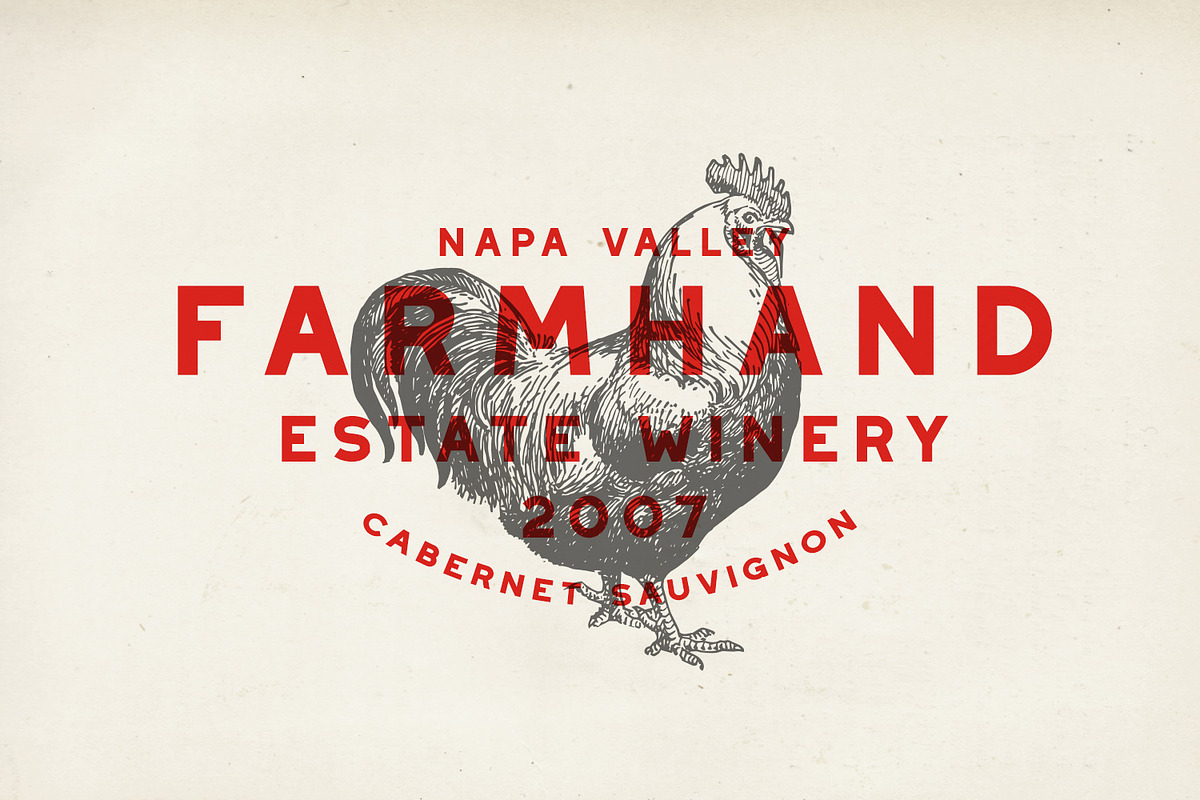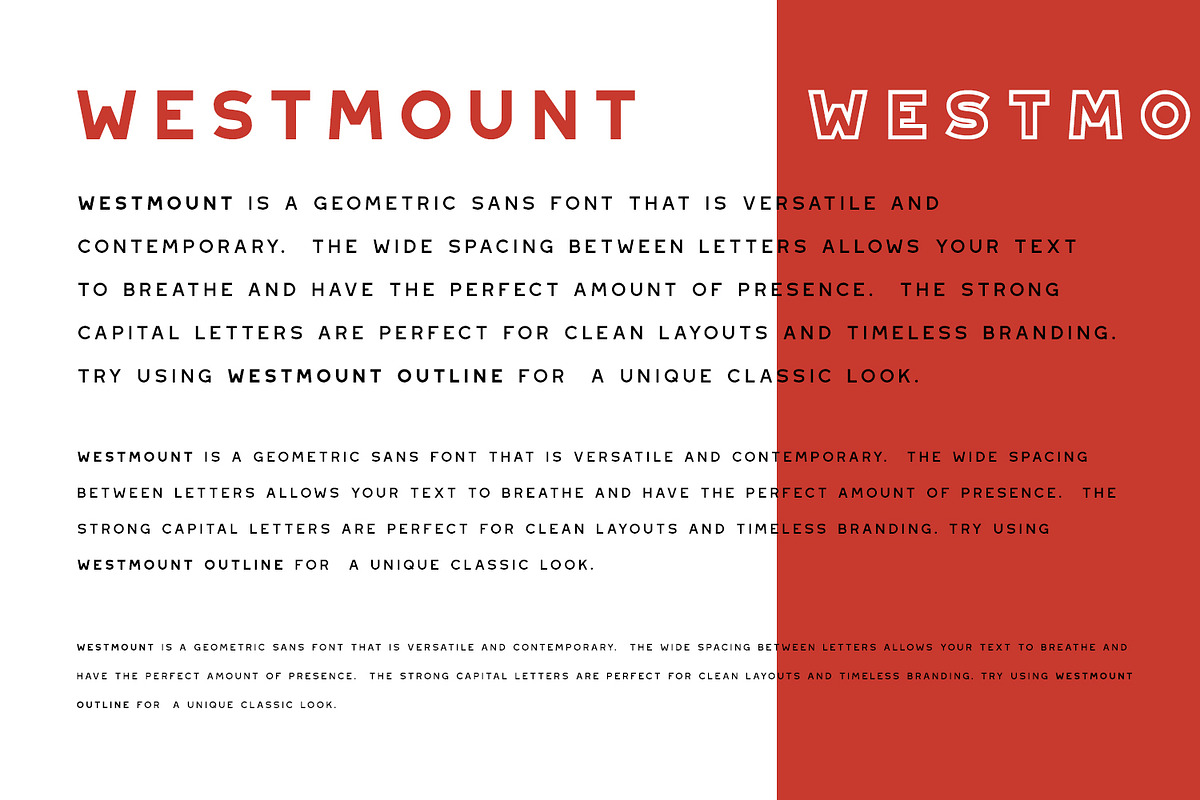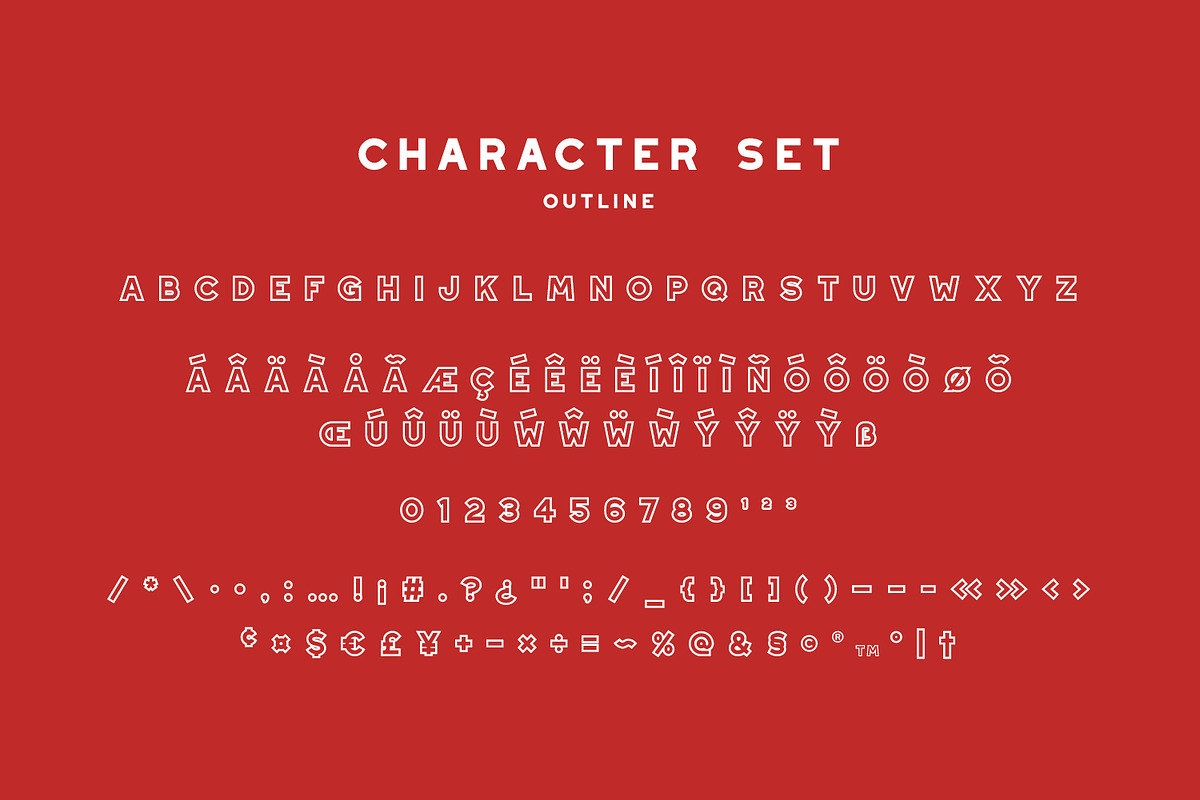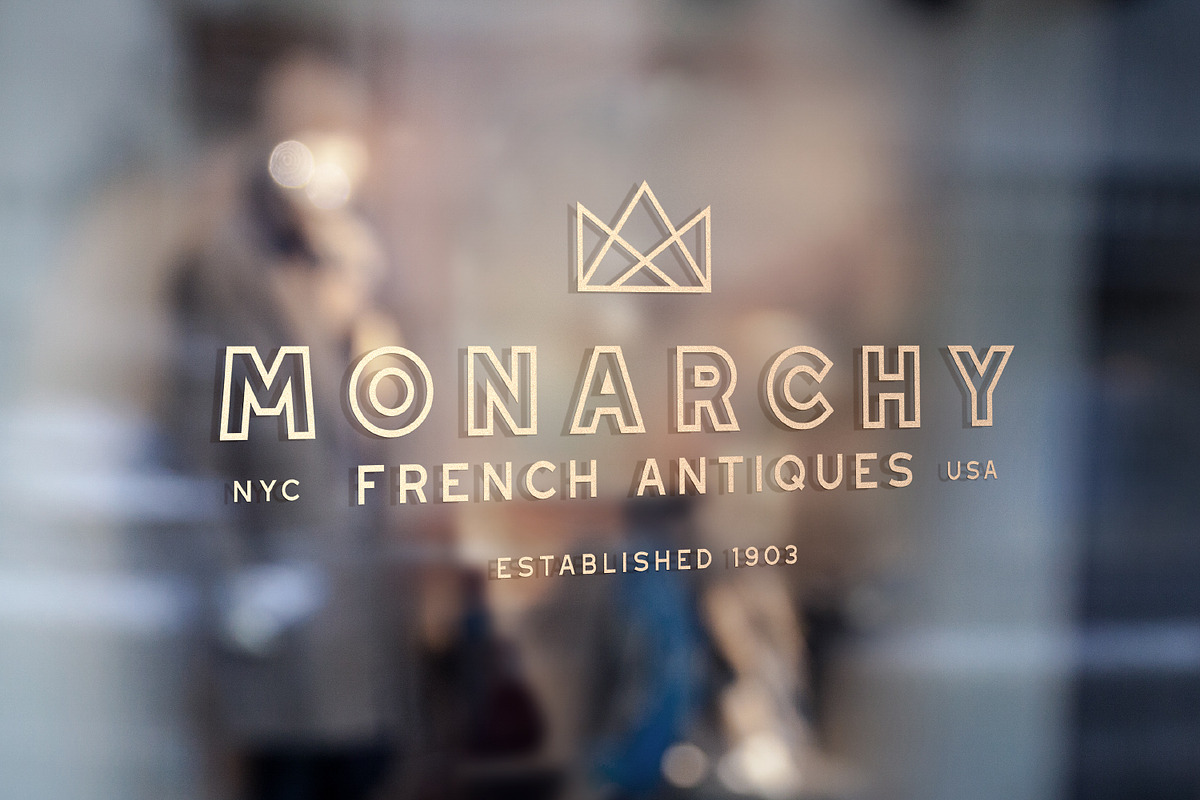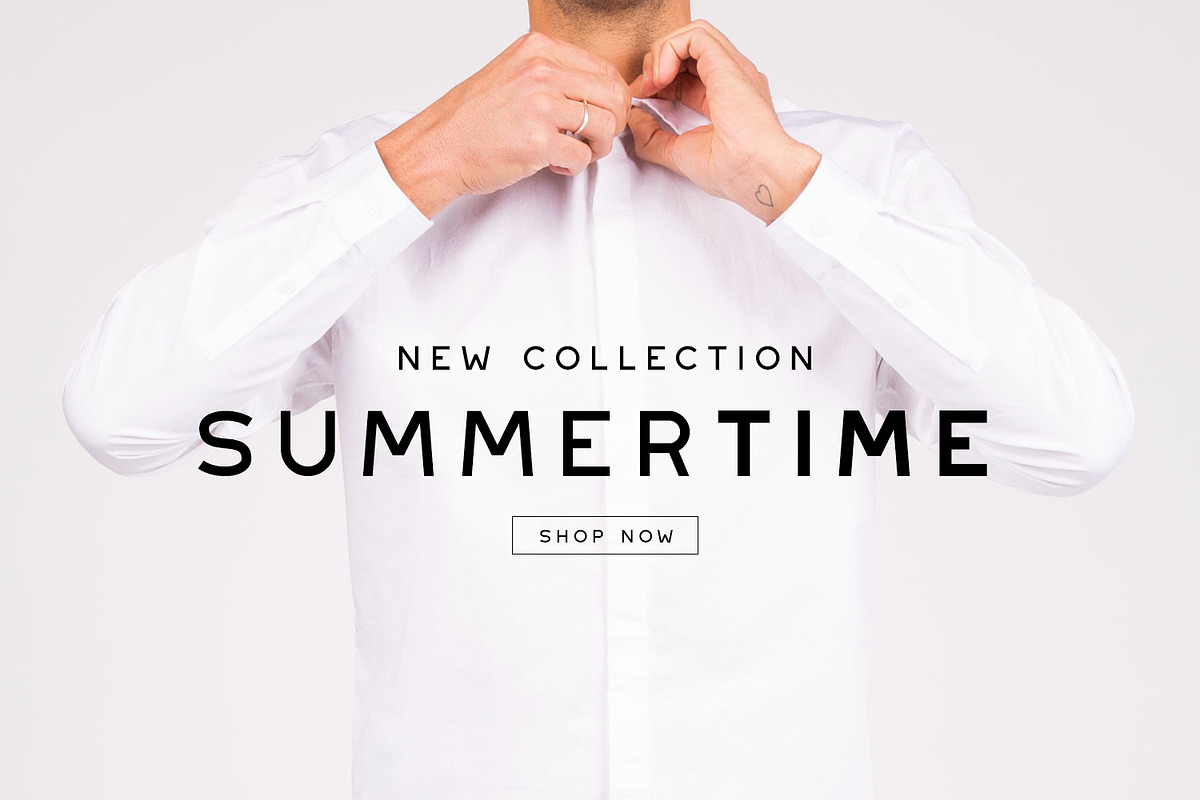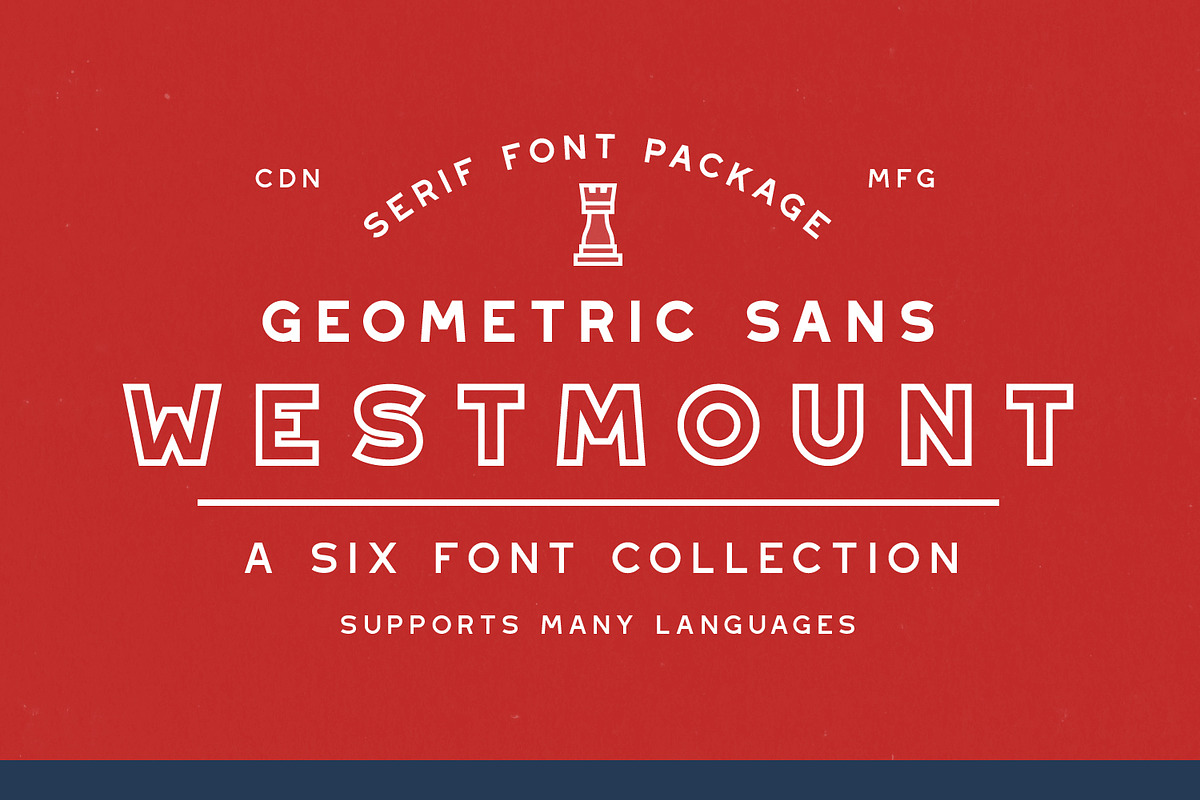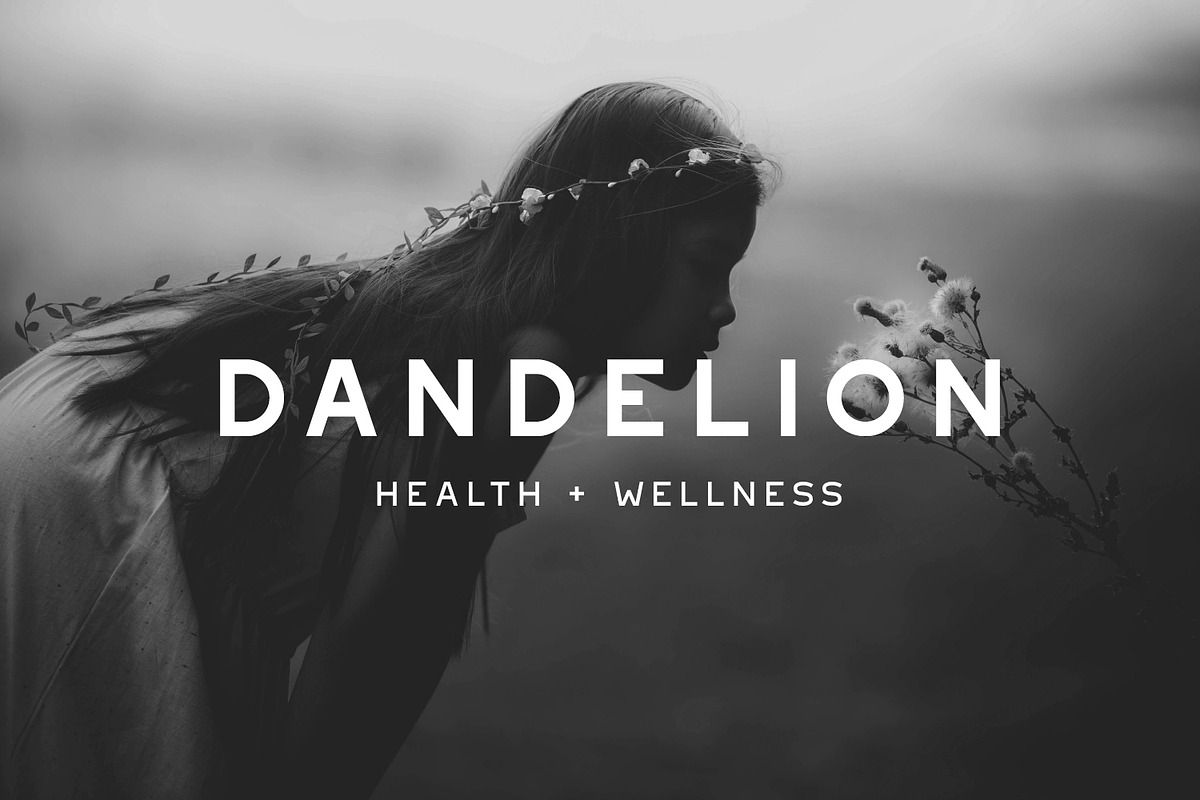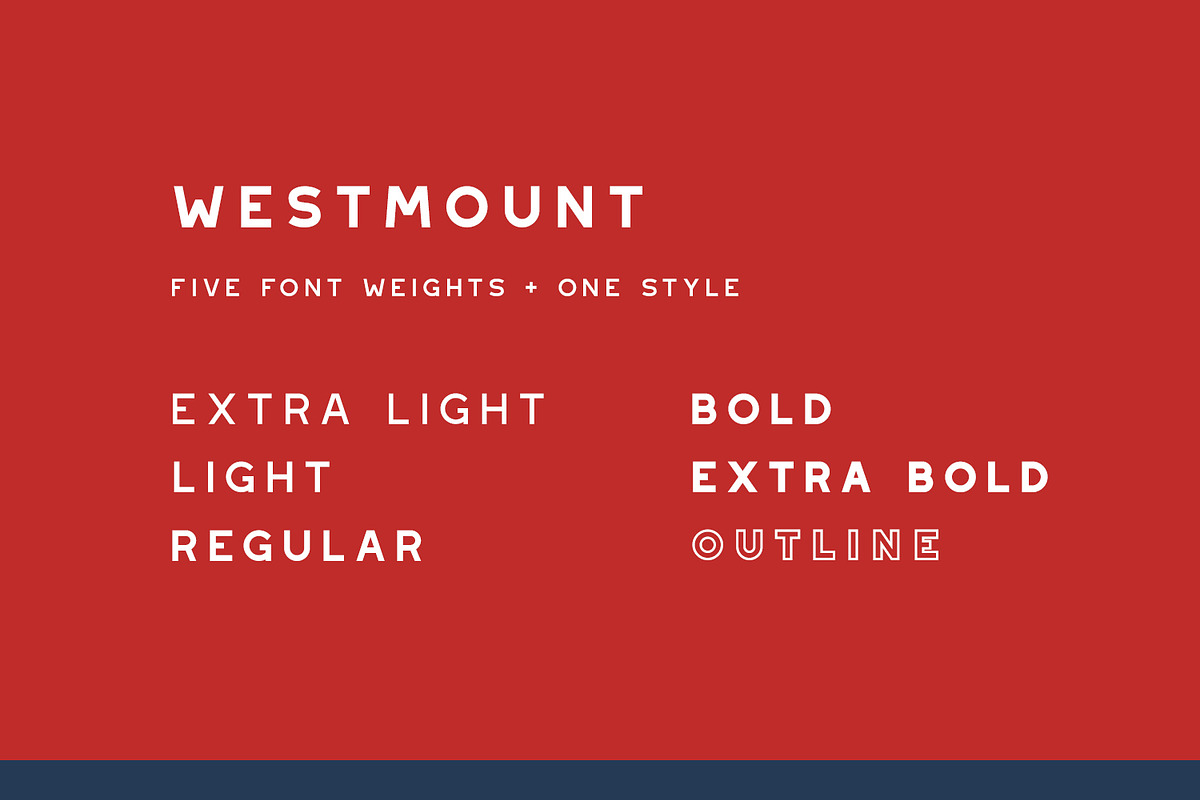
Westmount - 6 Sans Serif Fonts
Westmount - 6 Sans Serif Fonts by Greg Nicholls is a font selected for branding, posters, packaging, typography.
- Includes 6 Font Styles: Westmount - Extra Light Westmount - Regular Westmount - Bold Westmount - Extra Bold Westmount - Ou
- Each font contains over 200 glyphs!
- Includes 6 Font Styles: Westmount - Extra Light Westmount - Regular Westmount - Bold Westmount - Extra Bold Westmount - Ou
- Each font contains over 200 glyphs!
- Includes 6 Font Styles: Westmount - Extra Light Westmount - Regular Westmount - Bold Westmount - Extra Bold Westmount - Ou
- Westmount Extra Light
- Westmount Light
- Westmount Regular
- Westmount Bold
- Westmount Extra Bold
- Westmount Outline
Why Westmount - 6 Sans Serif Fonts is worth a look
Westmount - 6 Sans Serif Fonts by Greg Nicholls fits naturally into Branding, posters, packaging, typography.